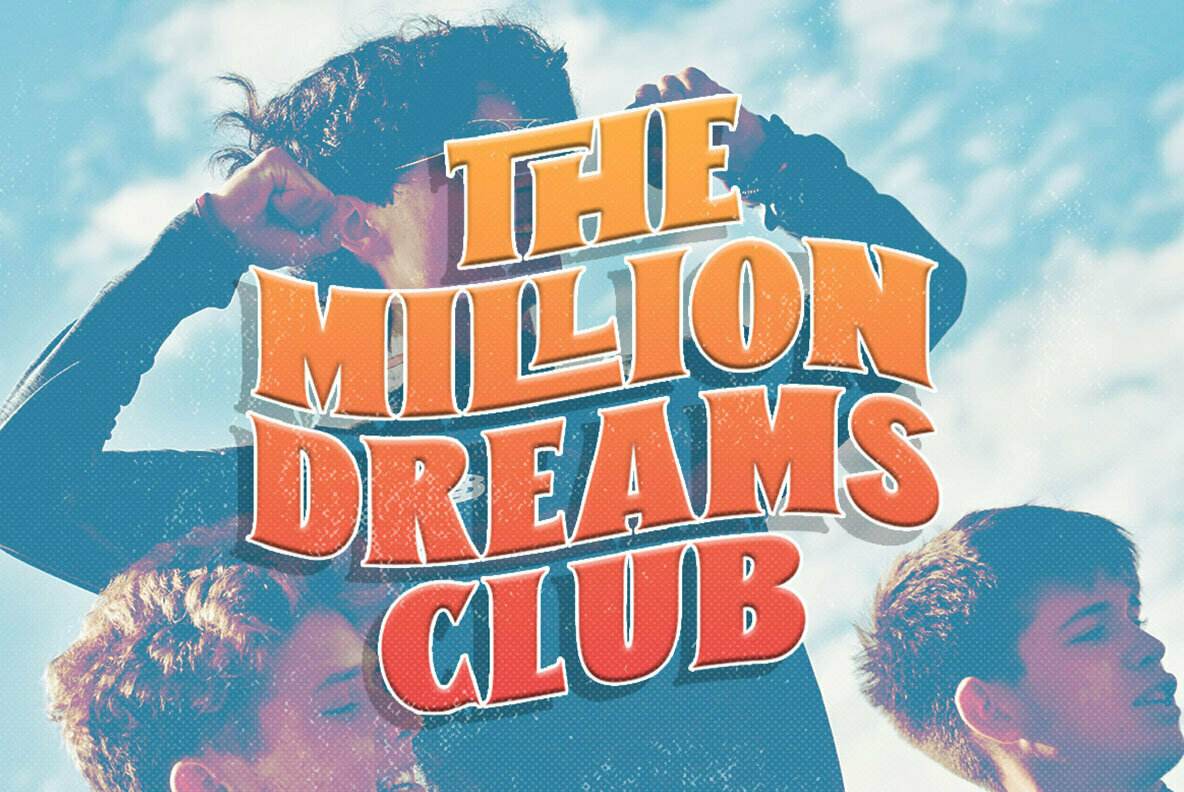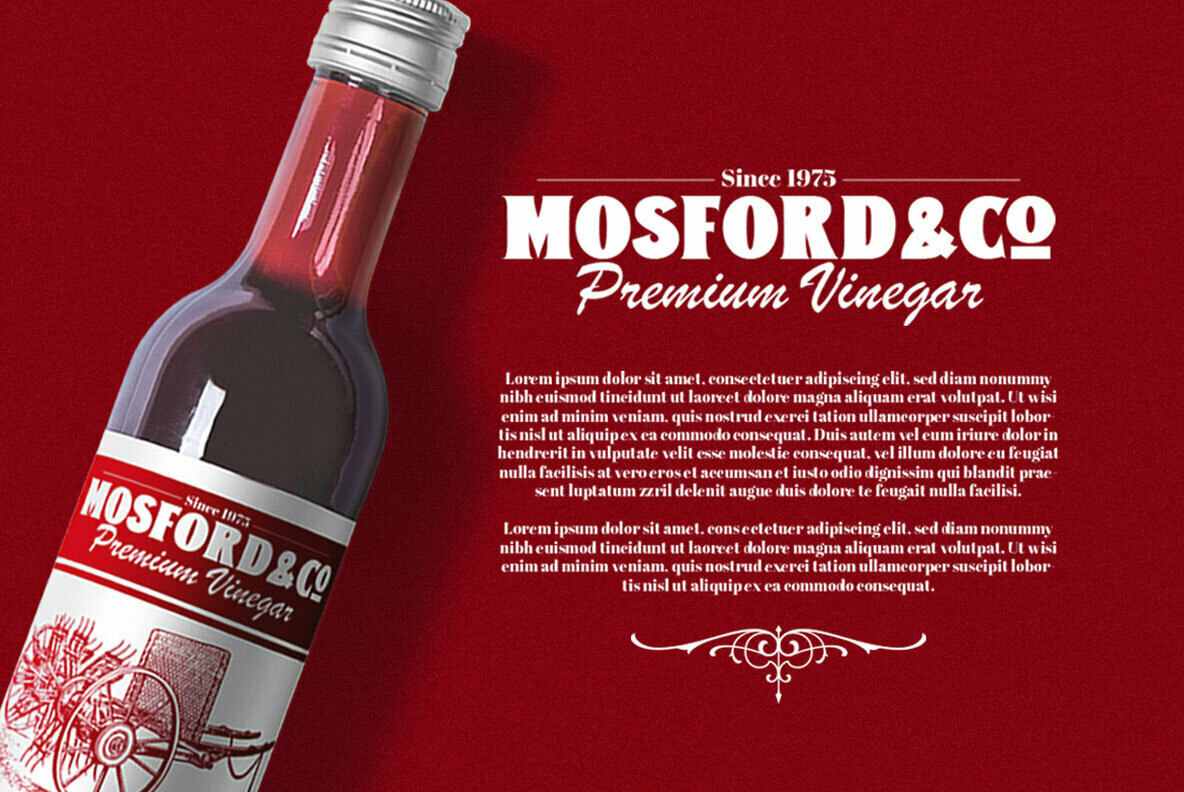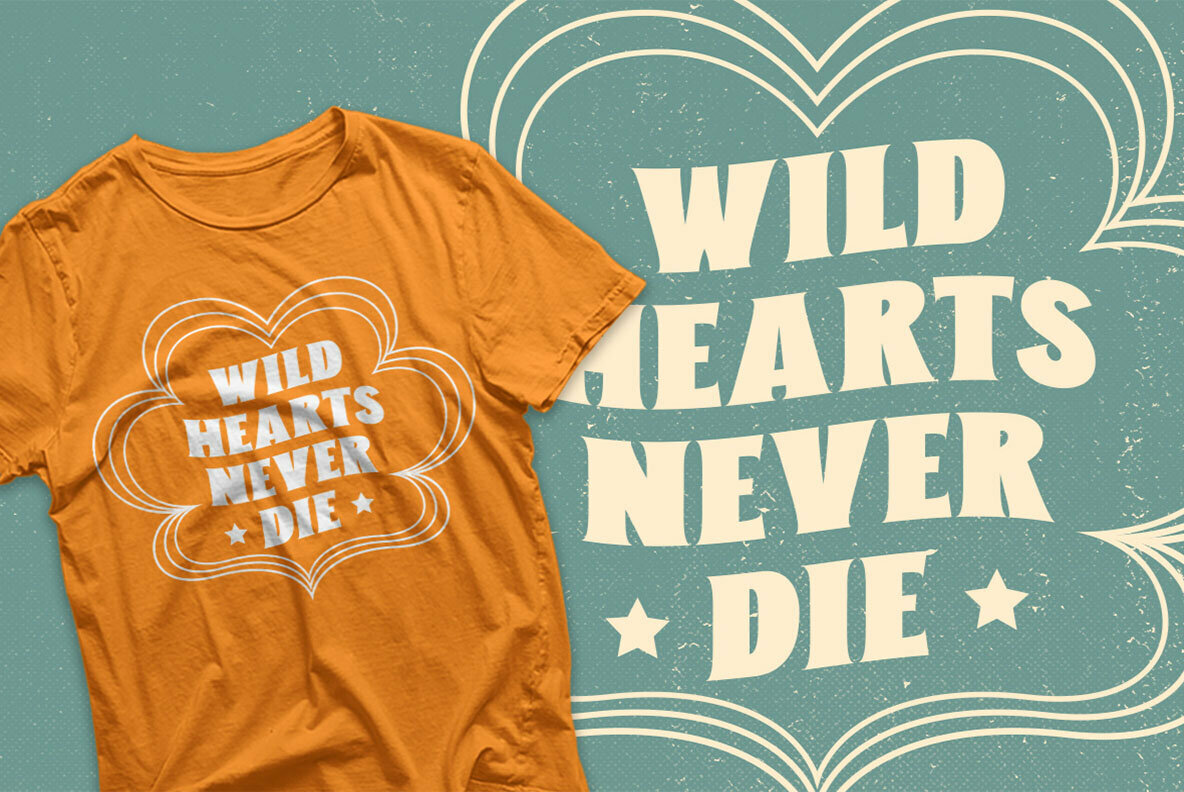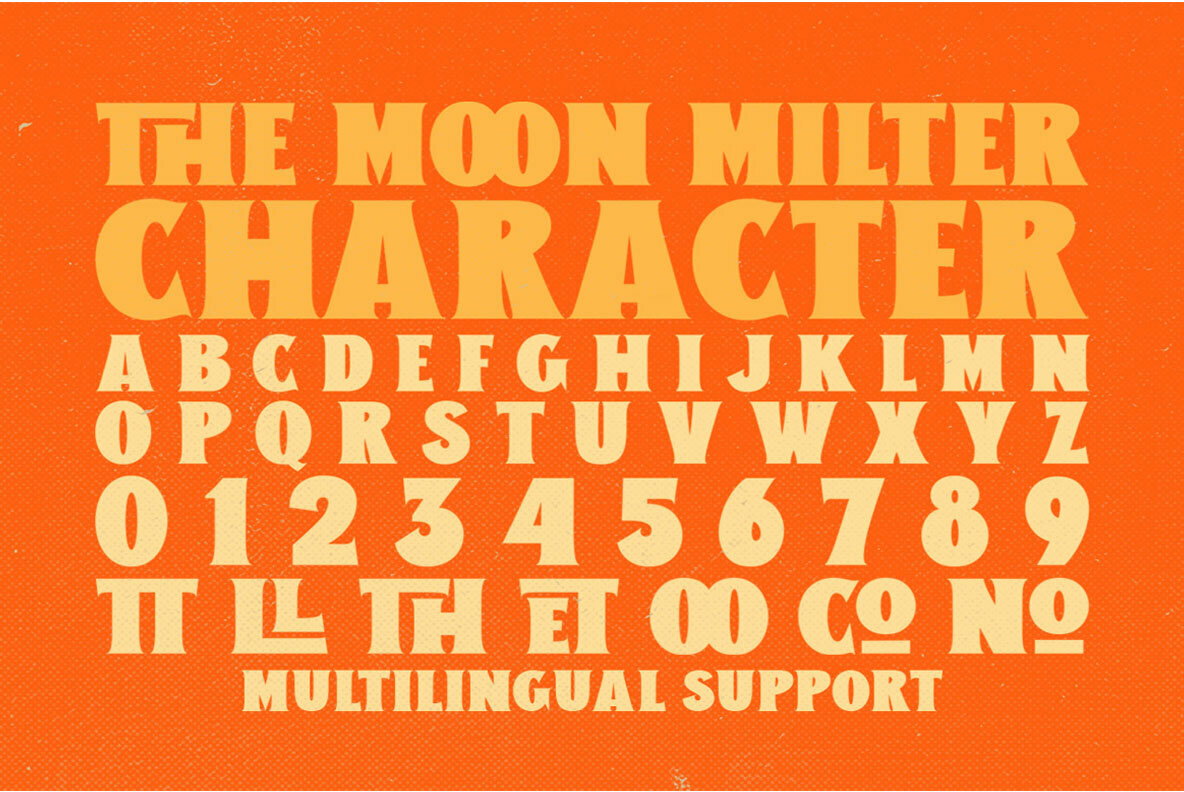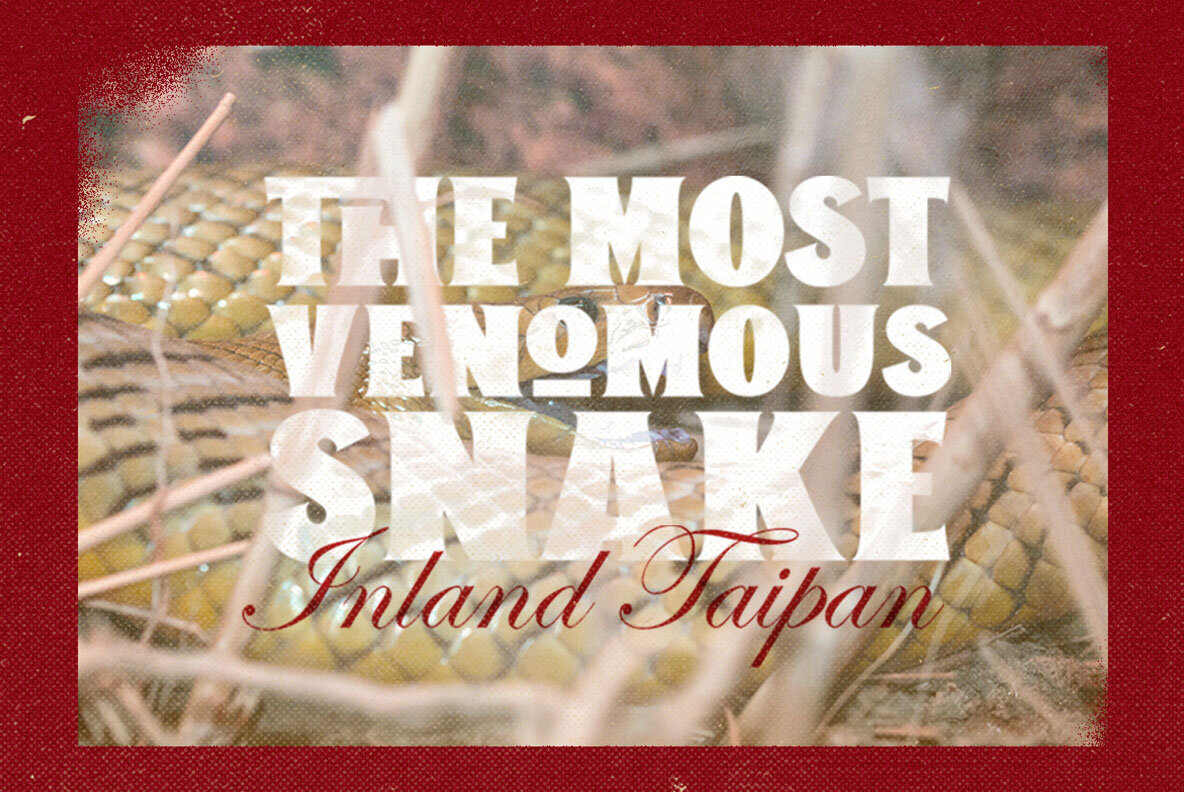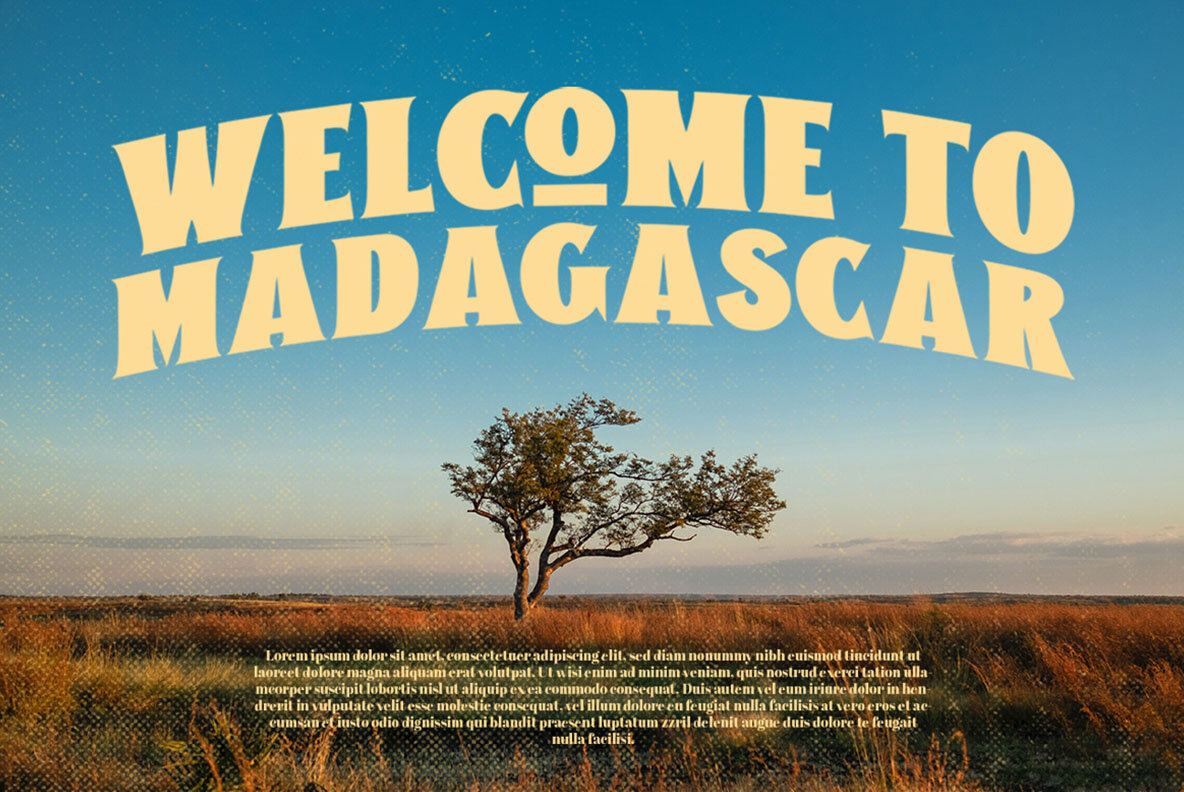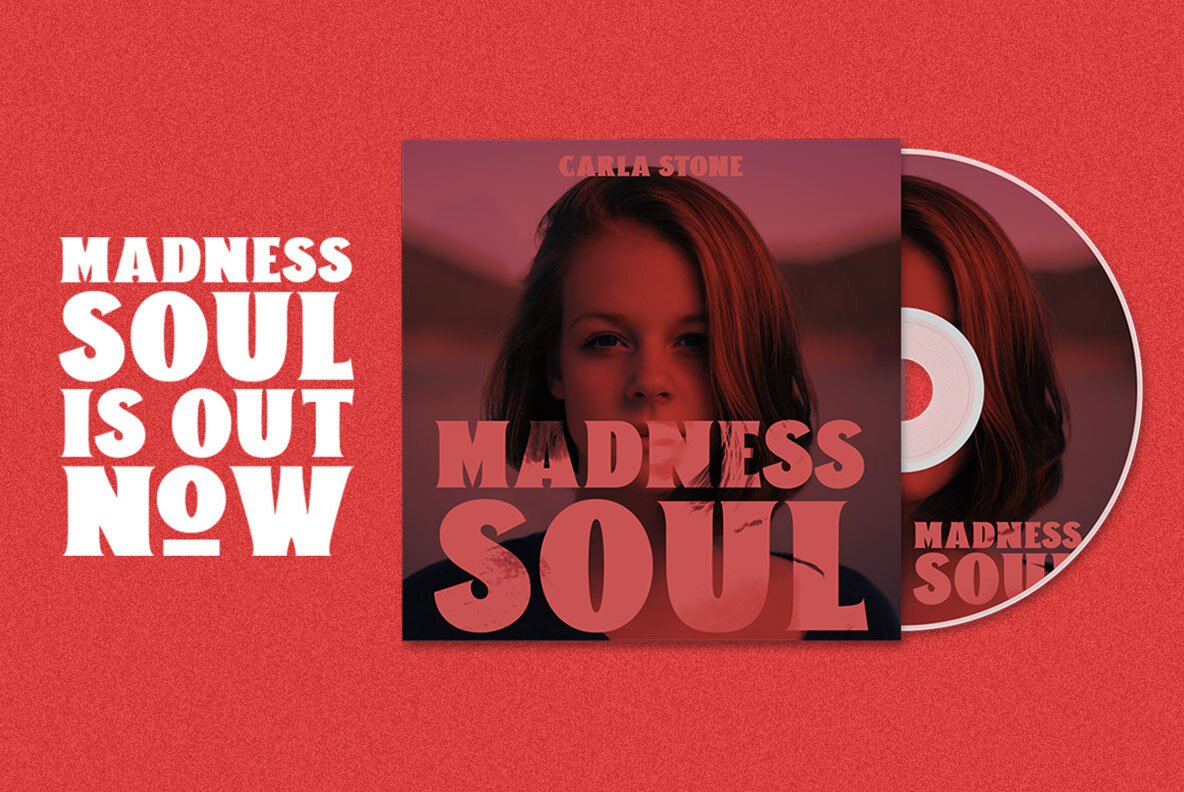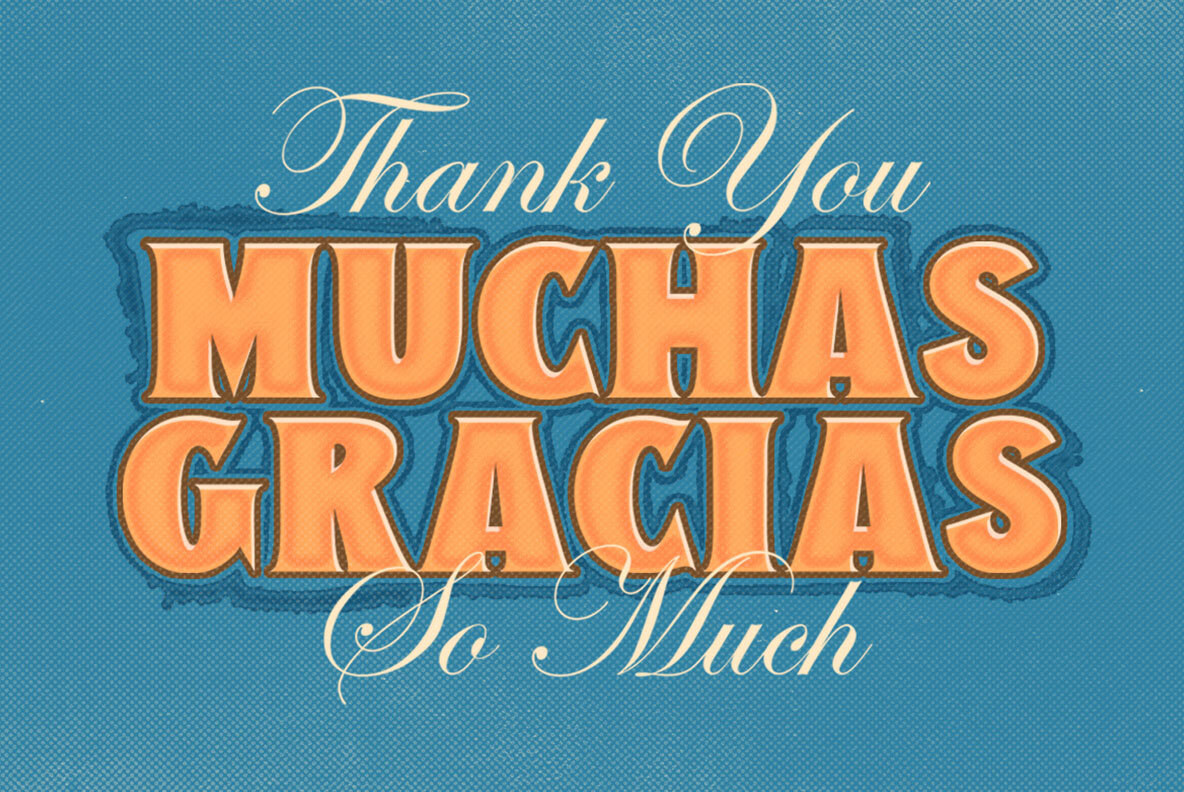
The Moon Milter Font
The Moon Milter Regular
Inspired by the iconic signages of the 1950s and 60s, The Moon Milter offers a nostalgic yet timeless aesthetic that complements an array of design projects. This vintage sans serif font is tailored for versatility, making it an excellent choice for logos, headlines, and signs. Its classic charm also extends to formal applications such as invitations, labels, and book covers, making it ideal for any advertising purpose.The Moon Milter: Vintage Sans Serif Typeface